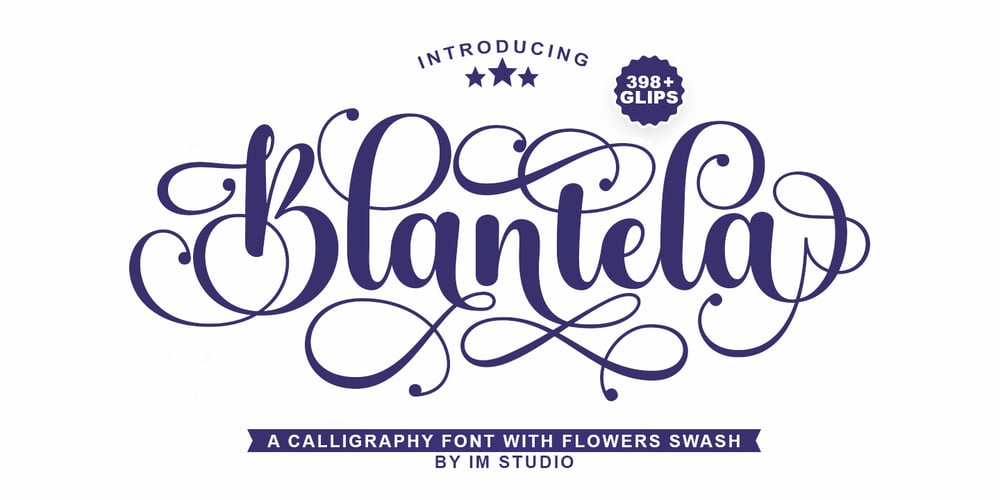
Blantela Font Family was designed by Ikhsan Maulana and published by IM Studio. Blantela contains 1 styles and family package options. Blantela Script is a modern calligraphy font with today’s handwriting style, this font is perfect for branding, wedding invitations, magazines, mugs, business cards, quotes, posters, and more, you can try first if you want to buy this font.Blantela Script includes many glyphs. and by having many of these glyphs, you will be able to choose letters according to your liking, lots of variations and options for each letter, so you can adjust to your design choices.To use various kinds of glyphs, you need a program that supports OpenType features such as Adobe Photoshop Cs/Adobe Photoshop CC, Adobe Illustrator CS/Adobe Illustrator CC, Adobe Indesign and Corel Draw and many more programs that support OpenType.If you don’t have a program that supports OpenType, you can access all the alternative glyphs using Font Book (Mac) or Character Map (Windows).Thanks and happy designing :-)Thank You for purchase!